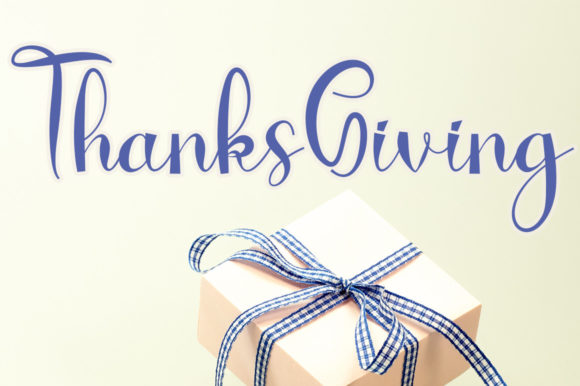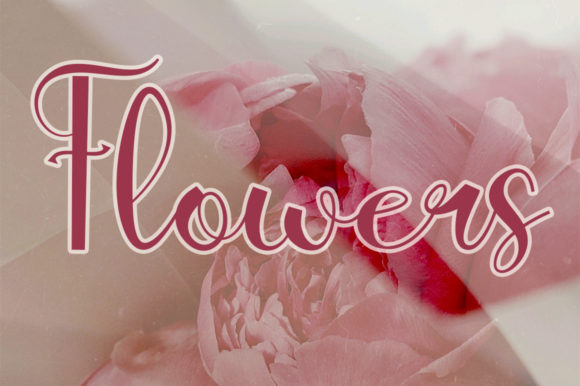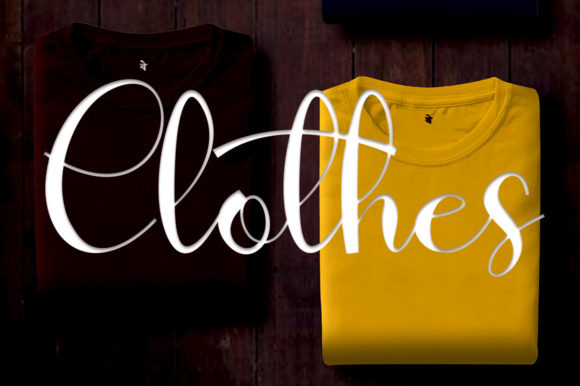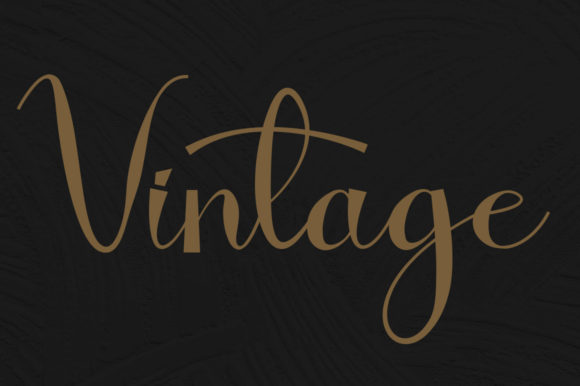
Introduction to Hatted Font
Hatted is a beautiful and light handwritten font with a unique feel and a stunning impact.
It will add a luxury spark to any design project that you wish to create .